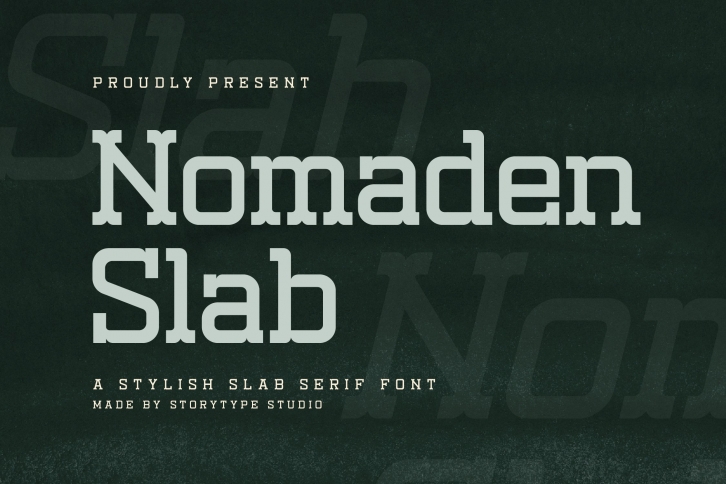
Nomaden Slab is a modern and classic serif font that has its own unique style and modern look. This typeface is perfect for elegant and luxurious logos, book or movie titles, fashion brands, magazines, clothes, lettering, quotes, and so much more.